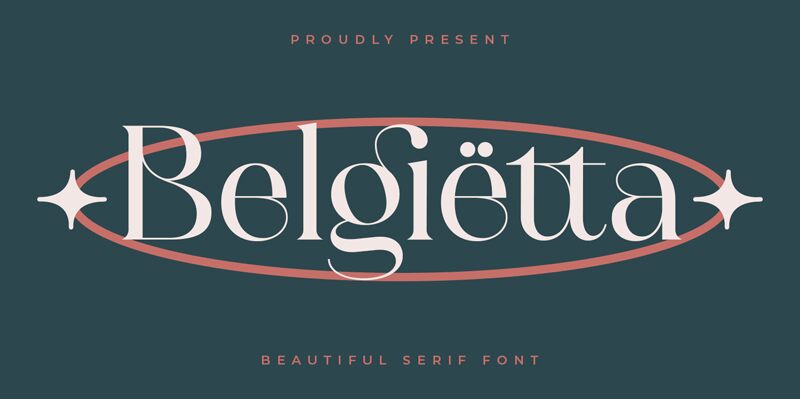
Belgietta
Belgietta, crafted by the renowned Moka Type Studio, emerges as a luxurious display serif that redefines elegance in typography. With its semi-light weight and an exquisite array of ligatures, this font weaves sophistication into every character. Tailor-made for creative projects seeking a touch of luxury, Belgietta’s versatility shines through in word-mark logos, monograms, and captivating pull quotes.
The font's extensive range of ligatures and alternates invites designers to explore endless possibilities, while its inclusion of numerals and punctuation ensures comprehensive usability. The option to disable ligatures facilitates standard writing applications without compromising the font's unique charm. Belgietta is not just a typeface; it's an asset for those who appreciate finesse in design. Whether you're crafting an upscale brand identity or setting the tone in editorial pieces, Belgietta stands ready to elevate your work with its undeniable allure.